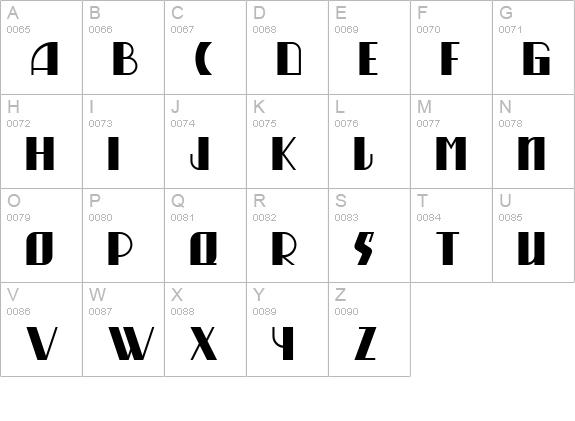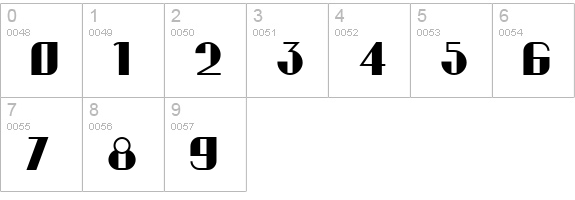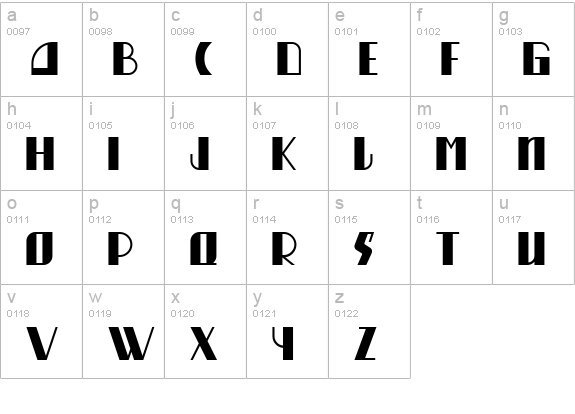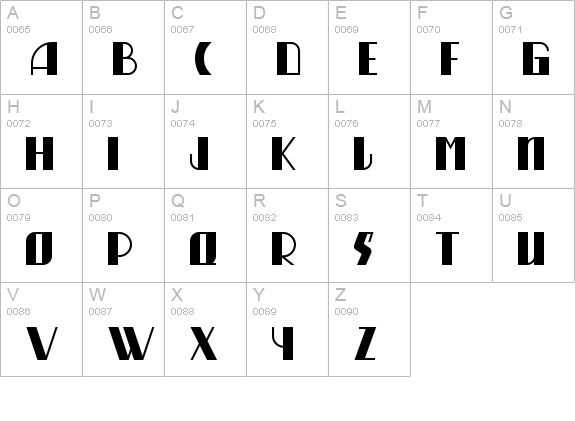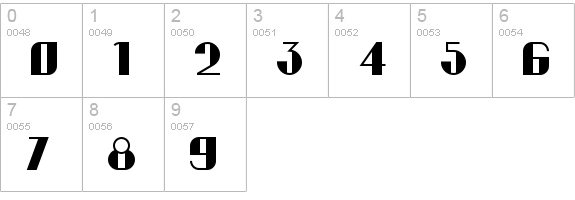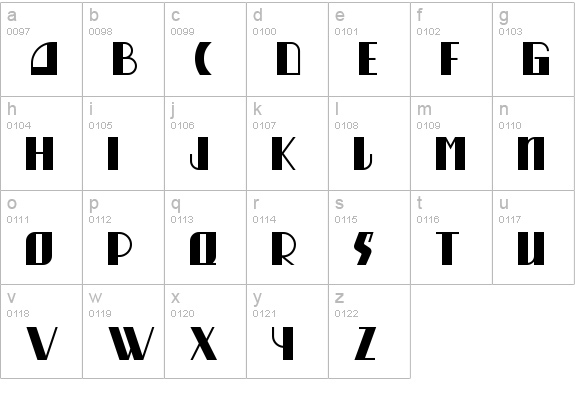
Munchausen NF Font Details
Munchausen NF font is a captivating and elegant typeface that exudes sophistication and charm. With its intricate details and unique design, this font is perfect for adding a touch of luxury to any project. The flowing curves and stylish flourishes of Munchausen NF font make it a versatile choice for various design applications, from branding to invitations to editorial layouts. What sets Munchausen NF font apart is its seamless blending of classic elegance with a modern twist, making it a timeless choice for any design project. Whether you're looking to create a sophisticated logo, a stylish poster, or an elegant wedding invitation, this font has you covered. And the best part? Munchausen NF font is completely free to download at FontsMarket.com! So you can add this stunning typeface to your collection without breaking the bank. Don't miss out on the opportunity to enhance your designs with the beauty and grace of Munchausen NF font. Download it today and start creating captivating visuals that will leave a lasting impression.